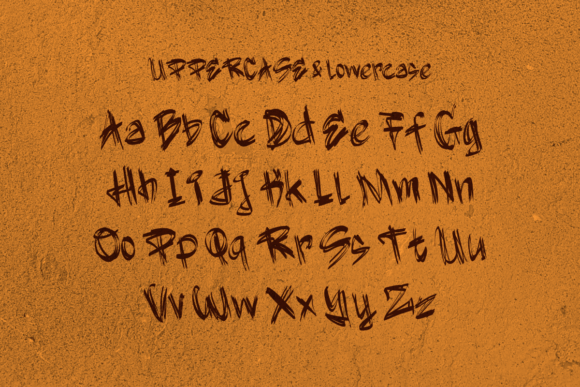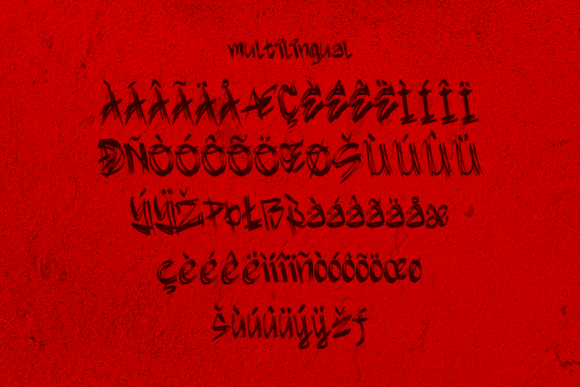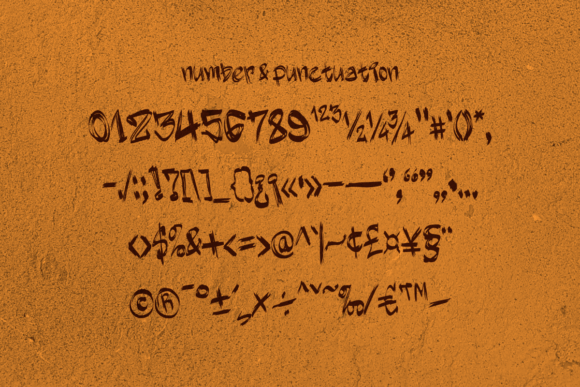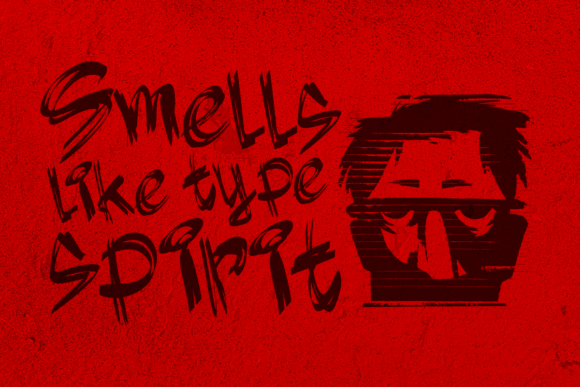
Introduction to Ramone Disorder Font
Ramone Disorder is a bold grunge handwritten display font inspired by punk culture, DIY zines, underground posters, and chaotic street typography.
Featuring rough strokes, sharp edges, and imperfect letterforms, this font brings an authentic rebellious energy to your designs Every character feels raw, expressive, and full of attitude — just like classic punk visuals.